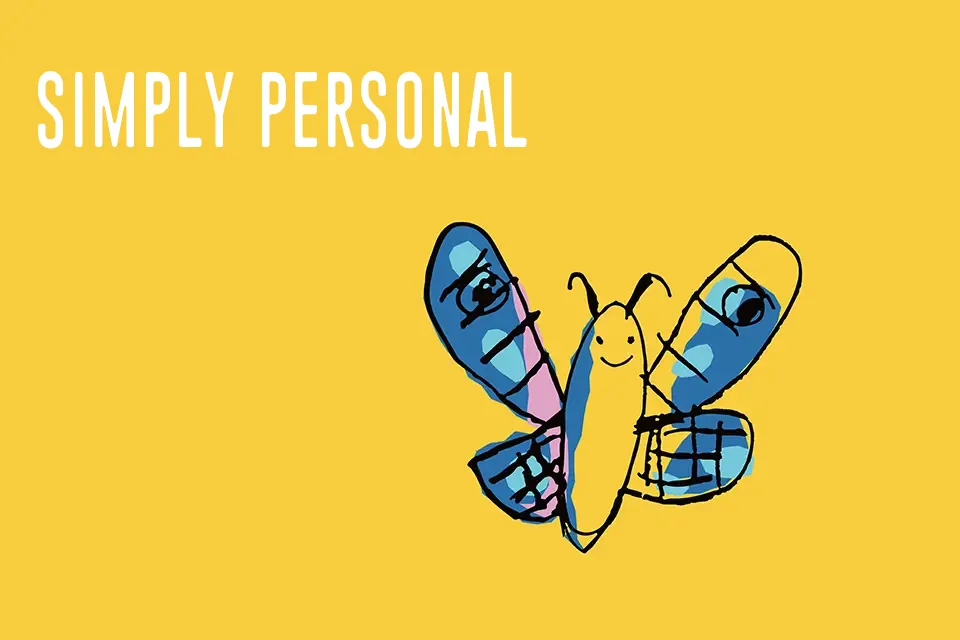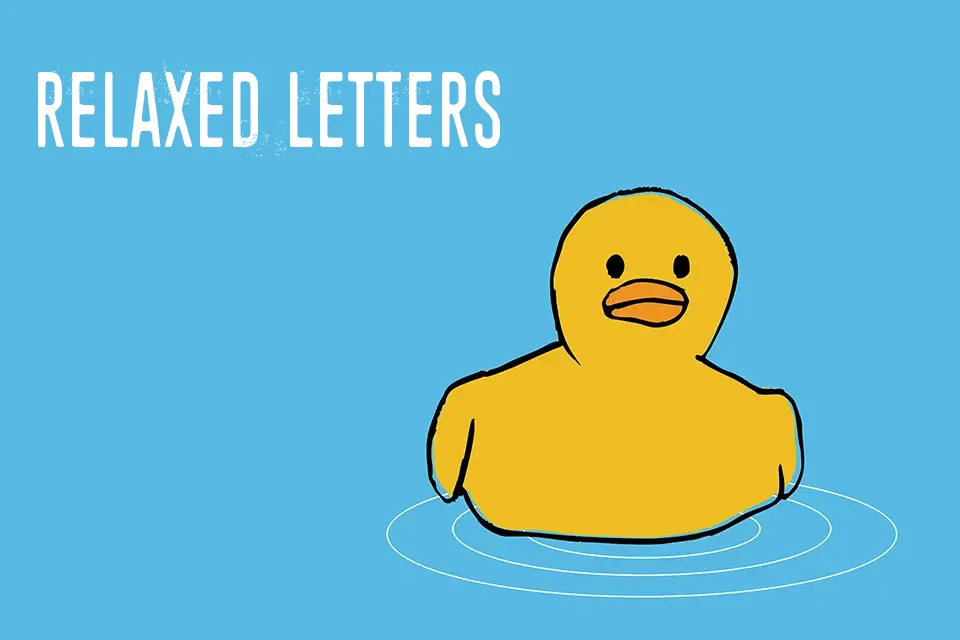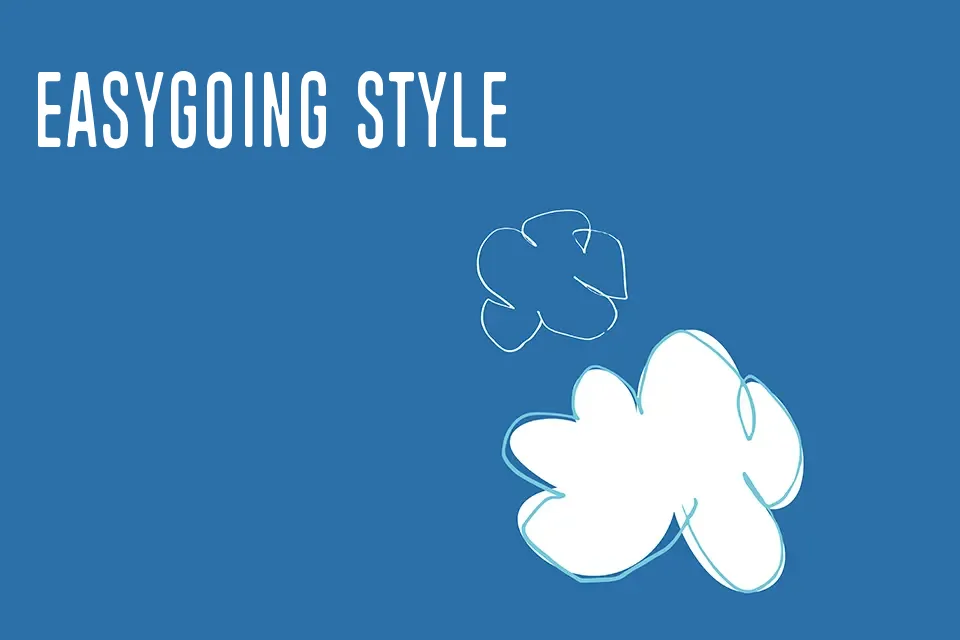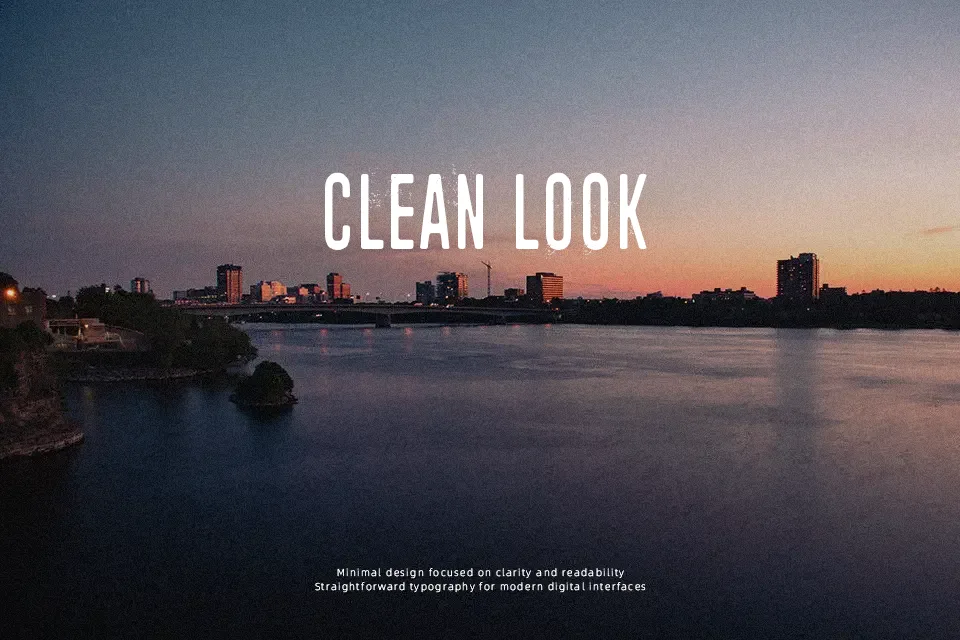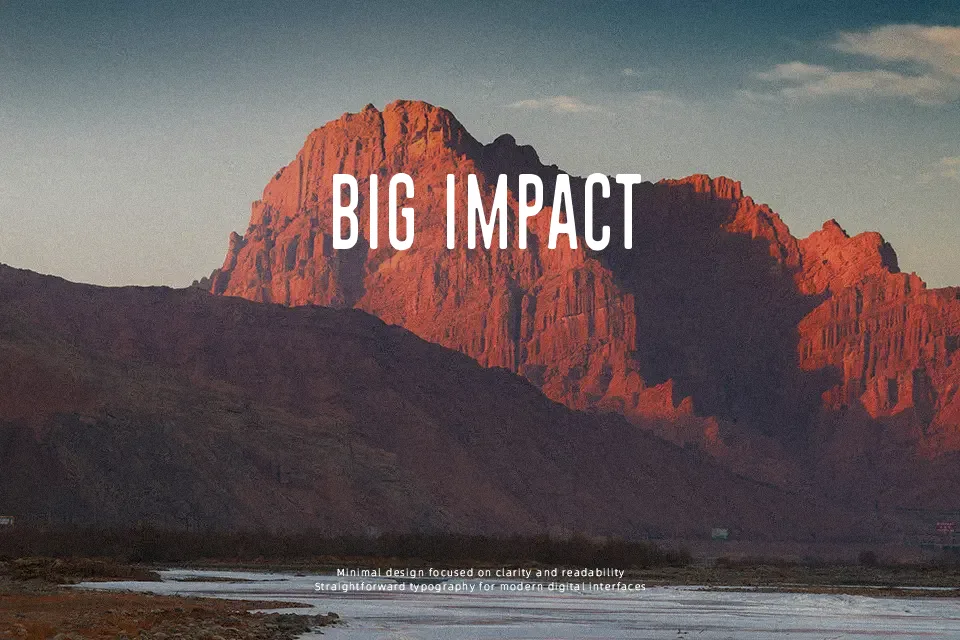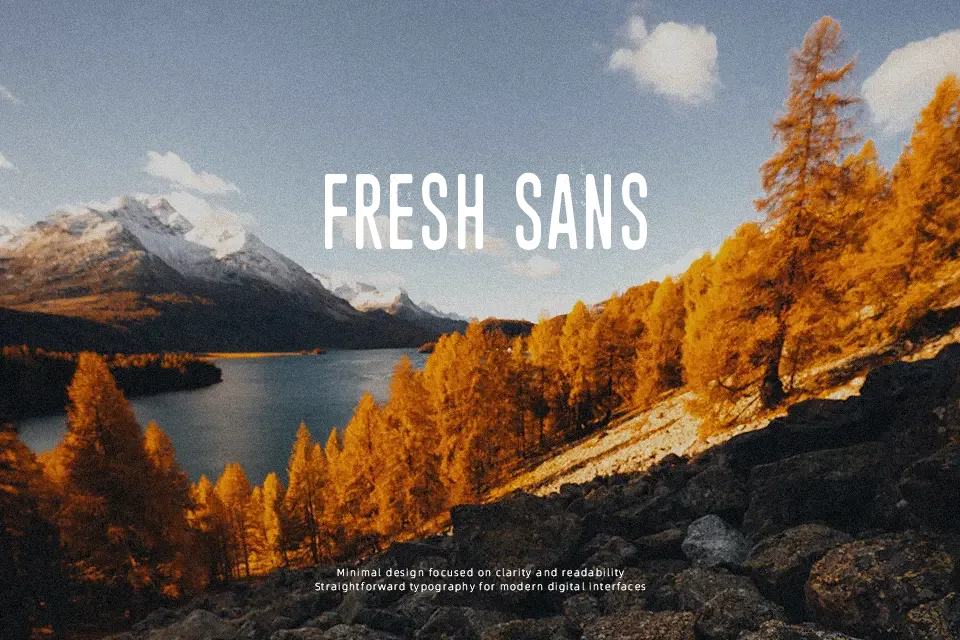
Piparivahtiperhonen Font
Designed by Juha Korhonen
Piparivahtiperhonen Font works best as a decorative display face for short words and prominent titles. Its expressive letterforms use uneven contours, varied proportions, and a lively handwritten rhythm rather than a rigid text structure. Spacing appears deliberately loose in places, allowing individual characters to retain their visual presence. The design is most effective in posters, labels, and creative headings where the text can be set large. Its distinctive shapes give short phrases personality, but they make dense copy slower to scan. The font is a practical choice when a project needs an informal, artistic headline rather than neutral everyday typography.
Best For: children’s event posters,creative product labels,playful packaging,art workshop headlines
Perfect for headline, kids, and packaging, with a artistic and decorative style.